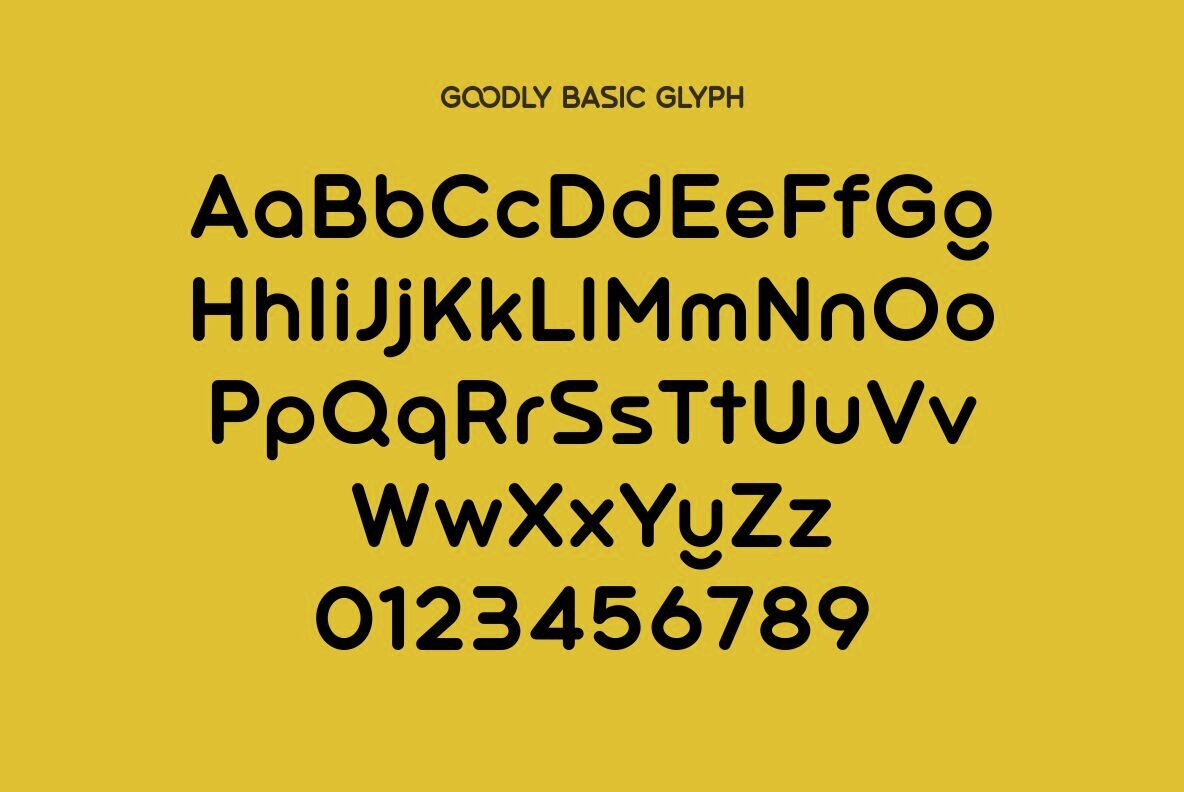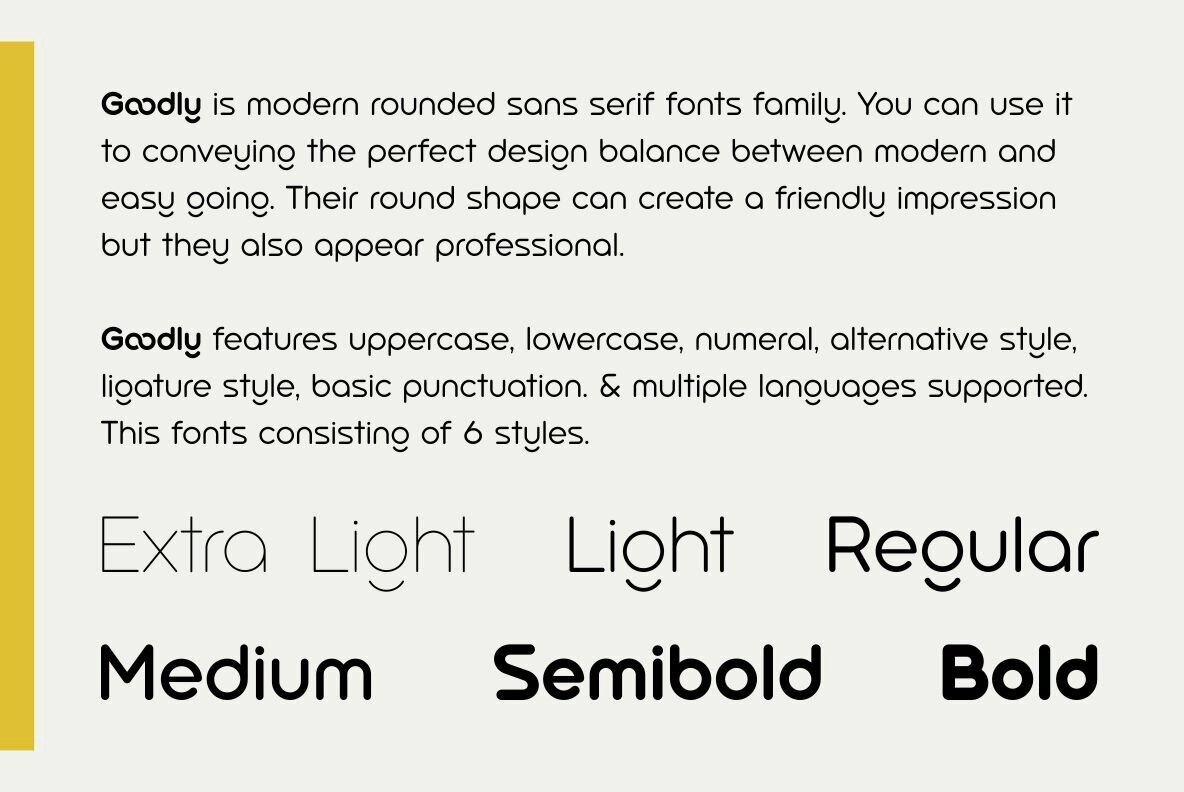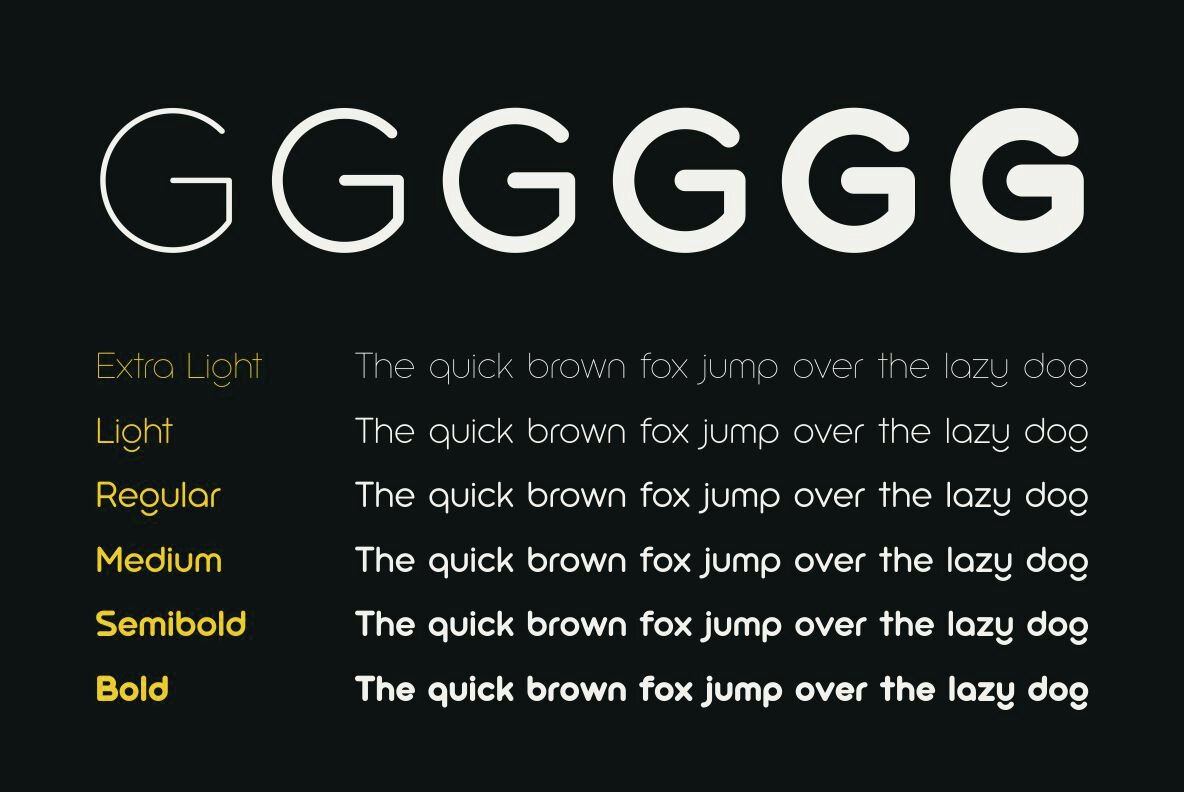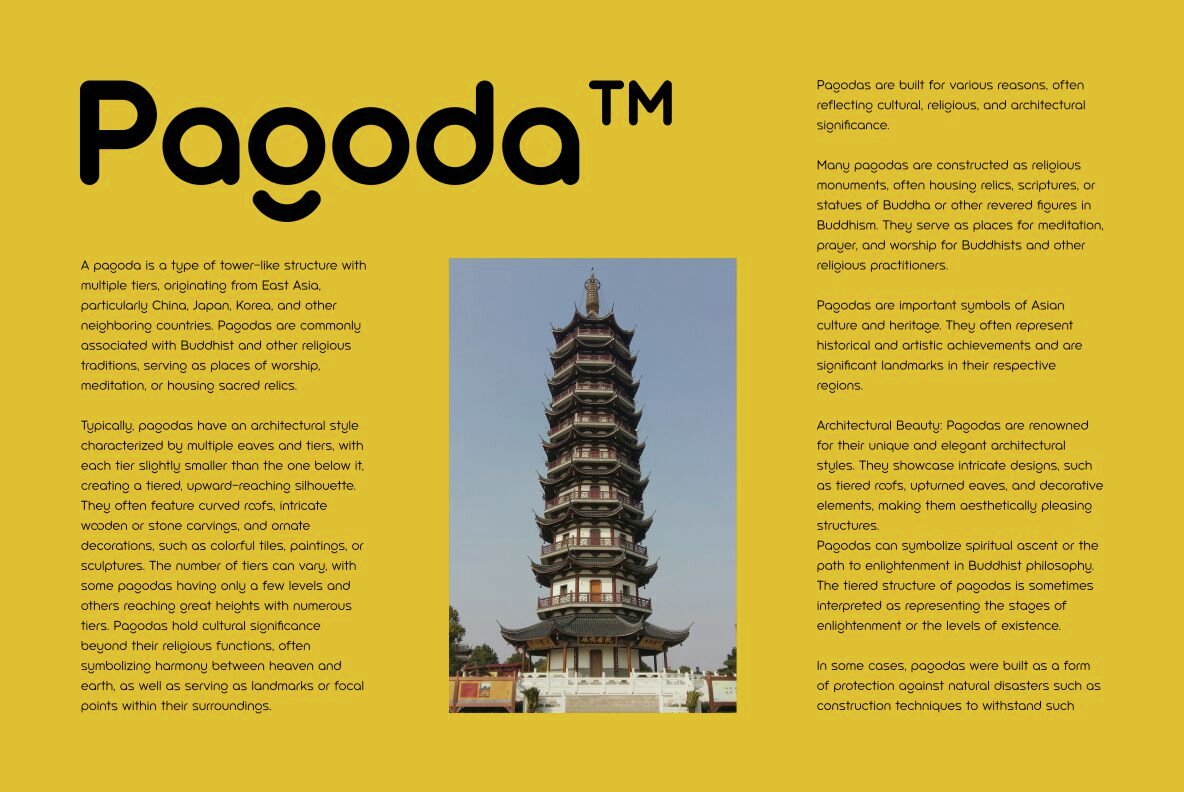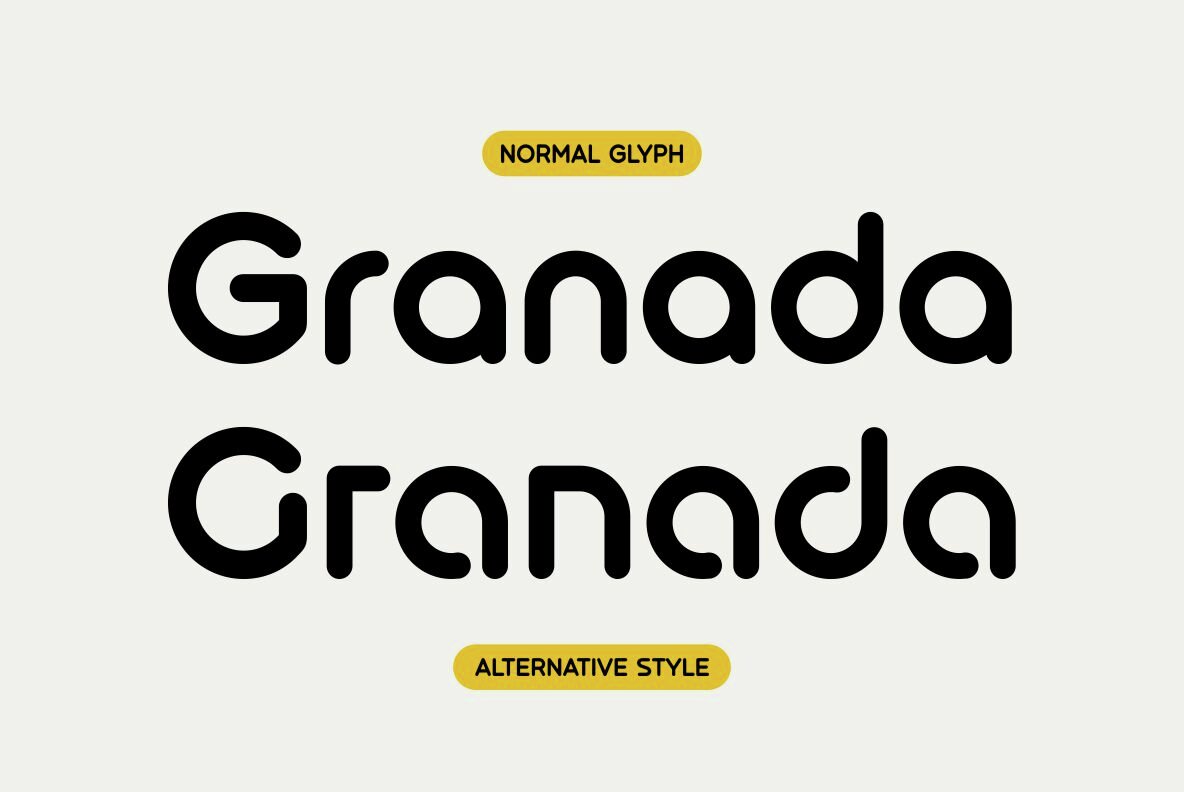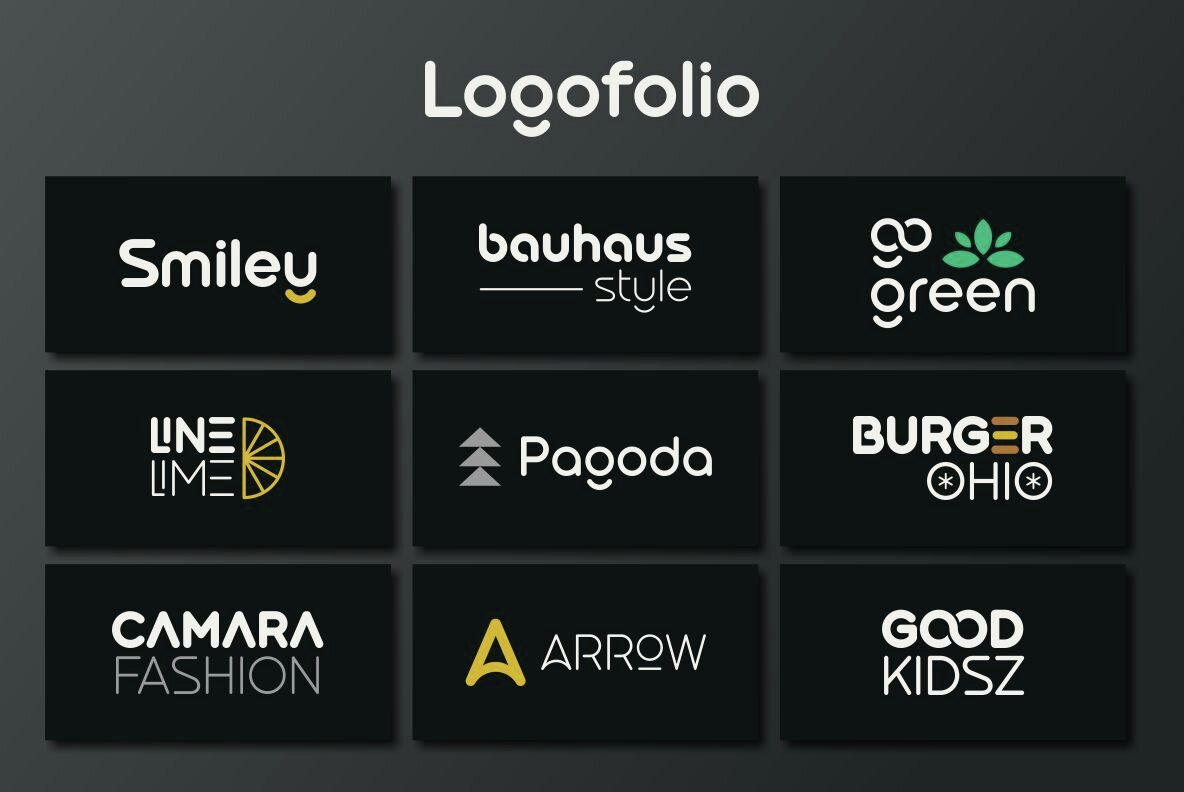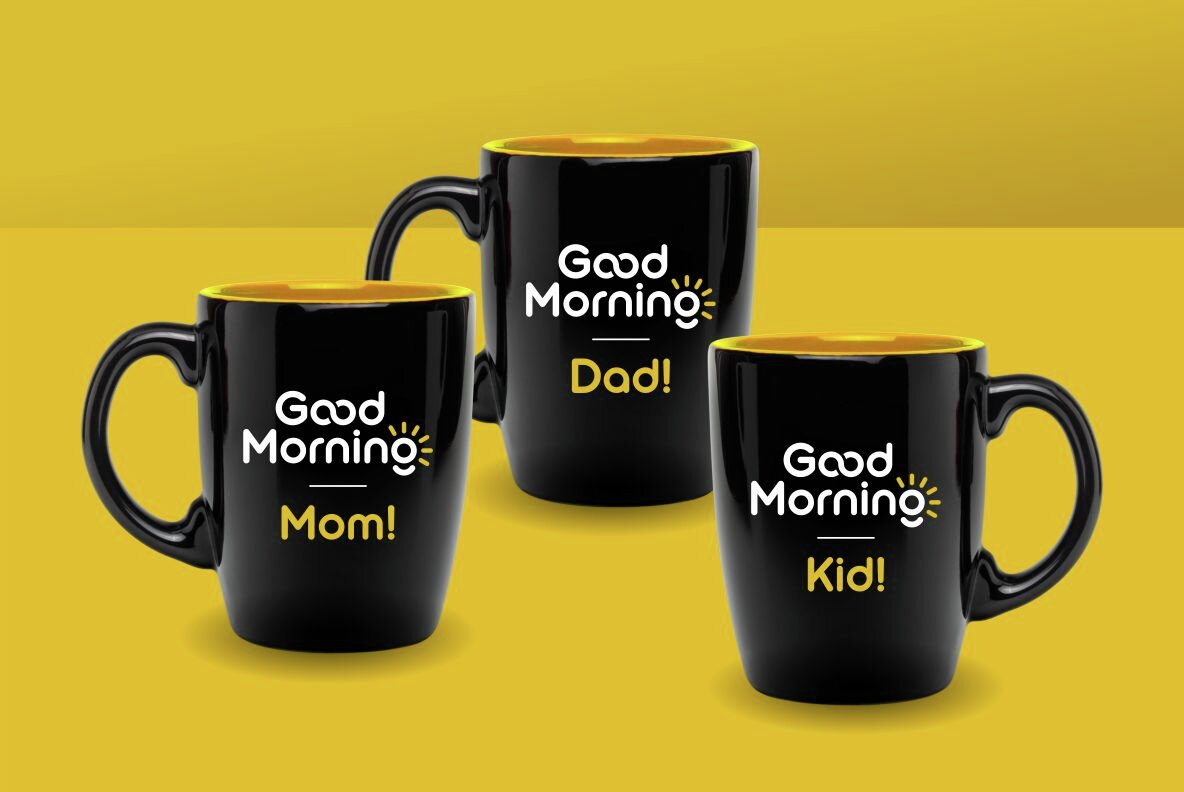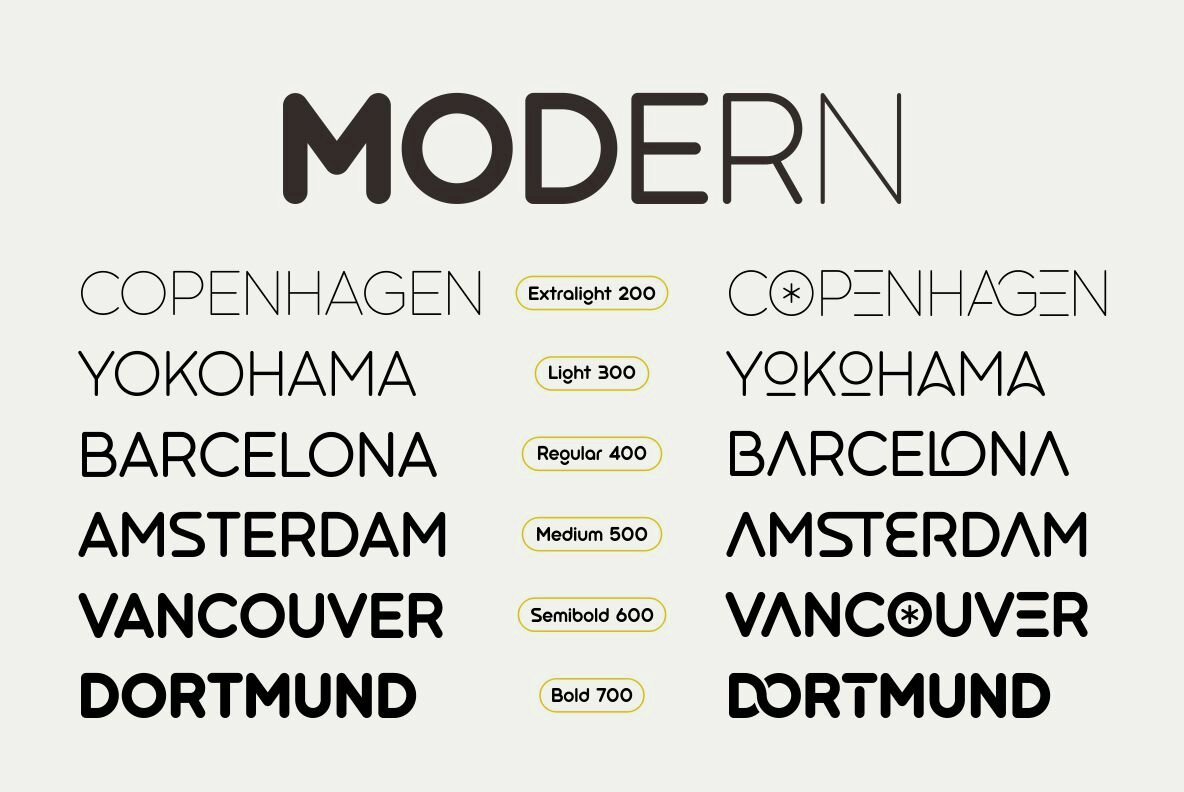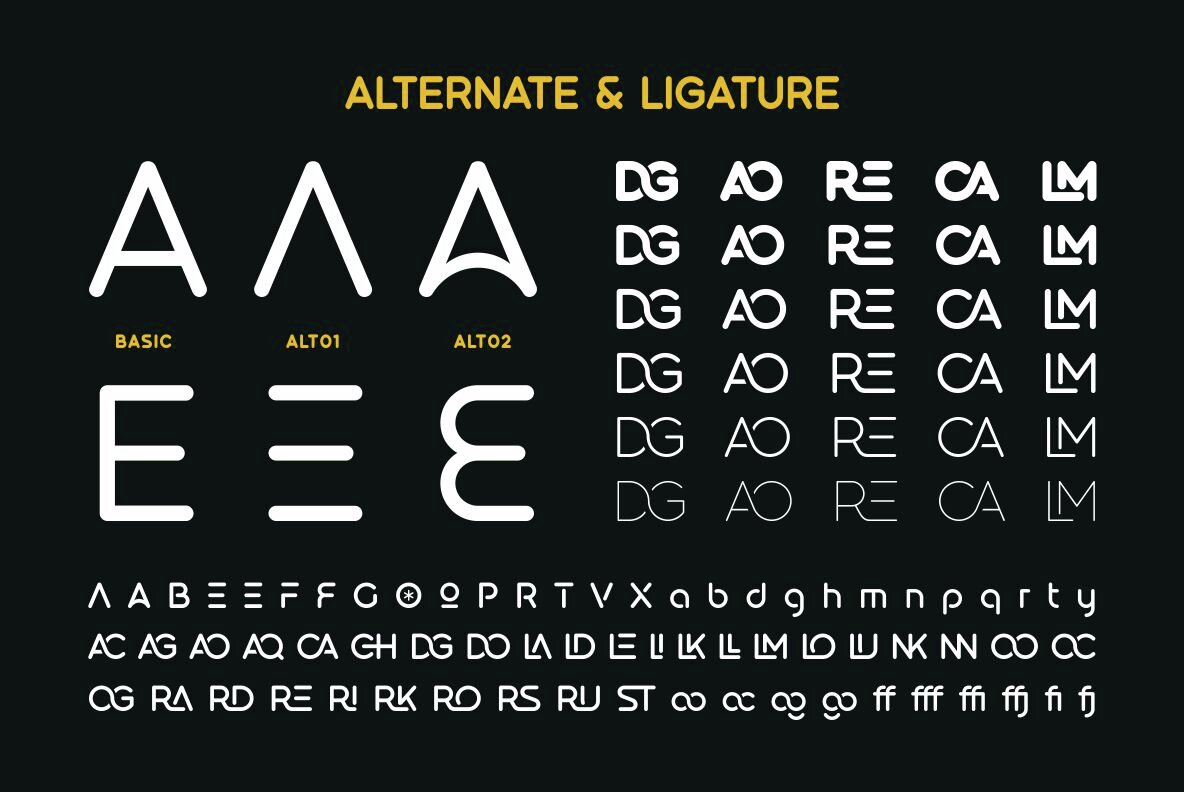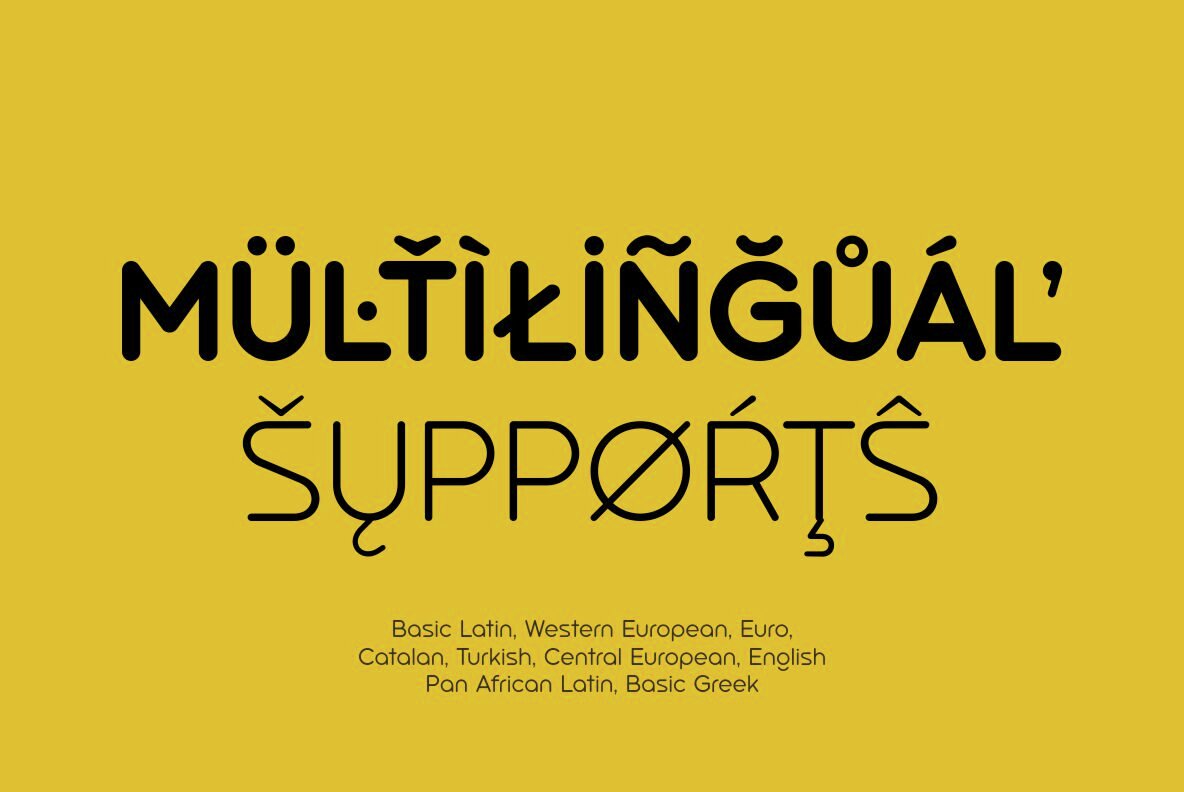
Goodly Font
Goodly is modern rounded sans serif fonts family consisting of 6 weight. You can use it to conveying the perfect design balance between modern and easy going. Their round shape can create a friendly impression but they also appear professional. This font is suitable for trendy packaging label designs, unique desired logos and brandings, poster designs, fashion and many more. Goodly font features: